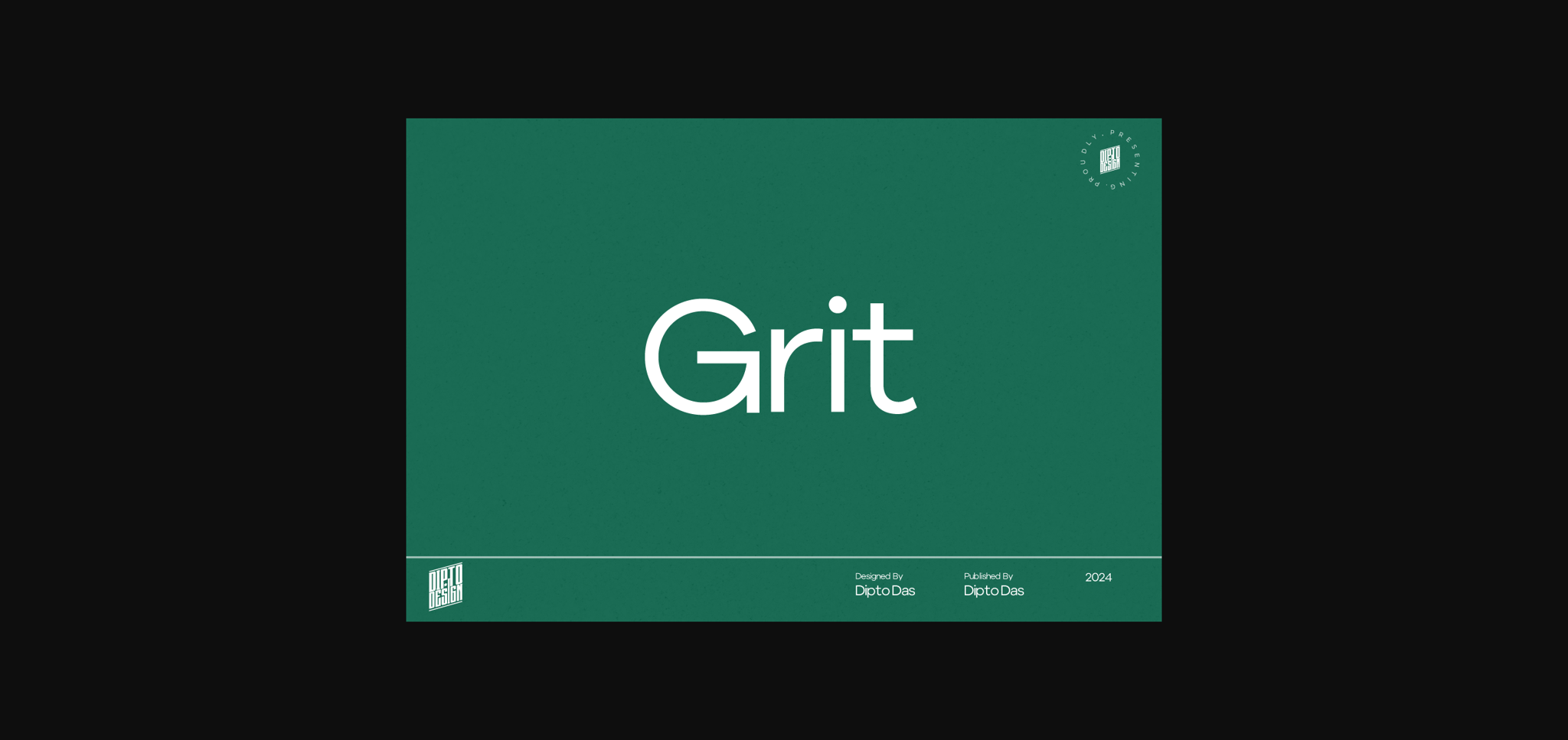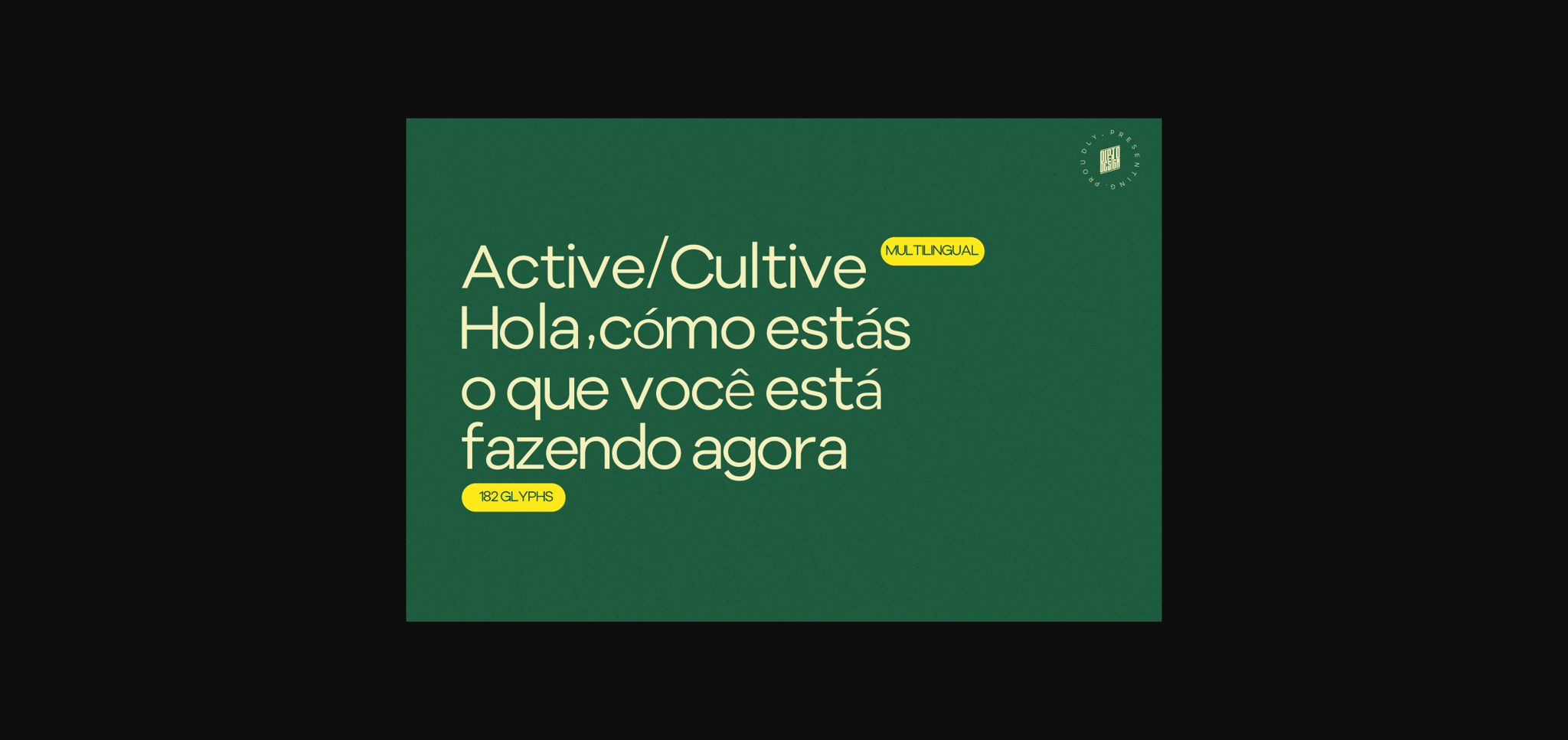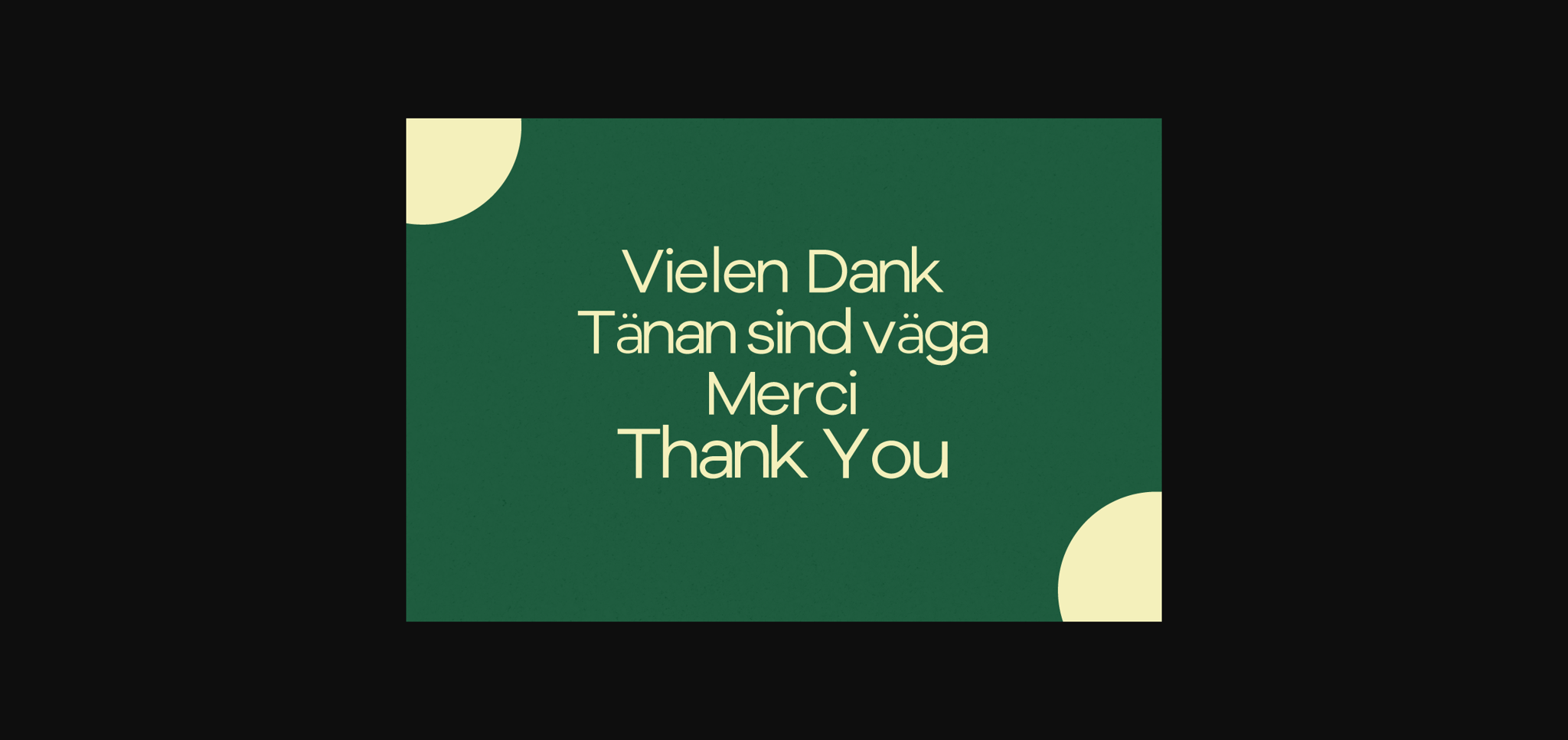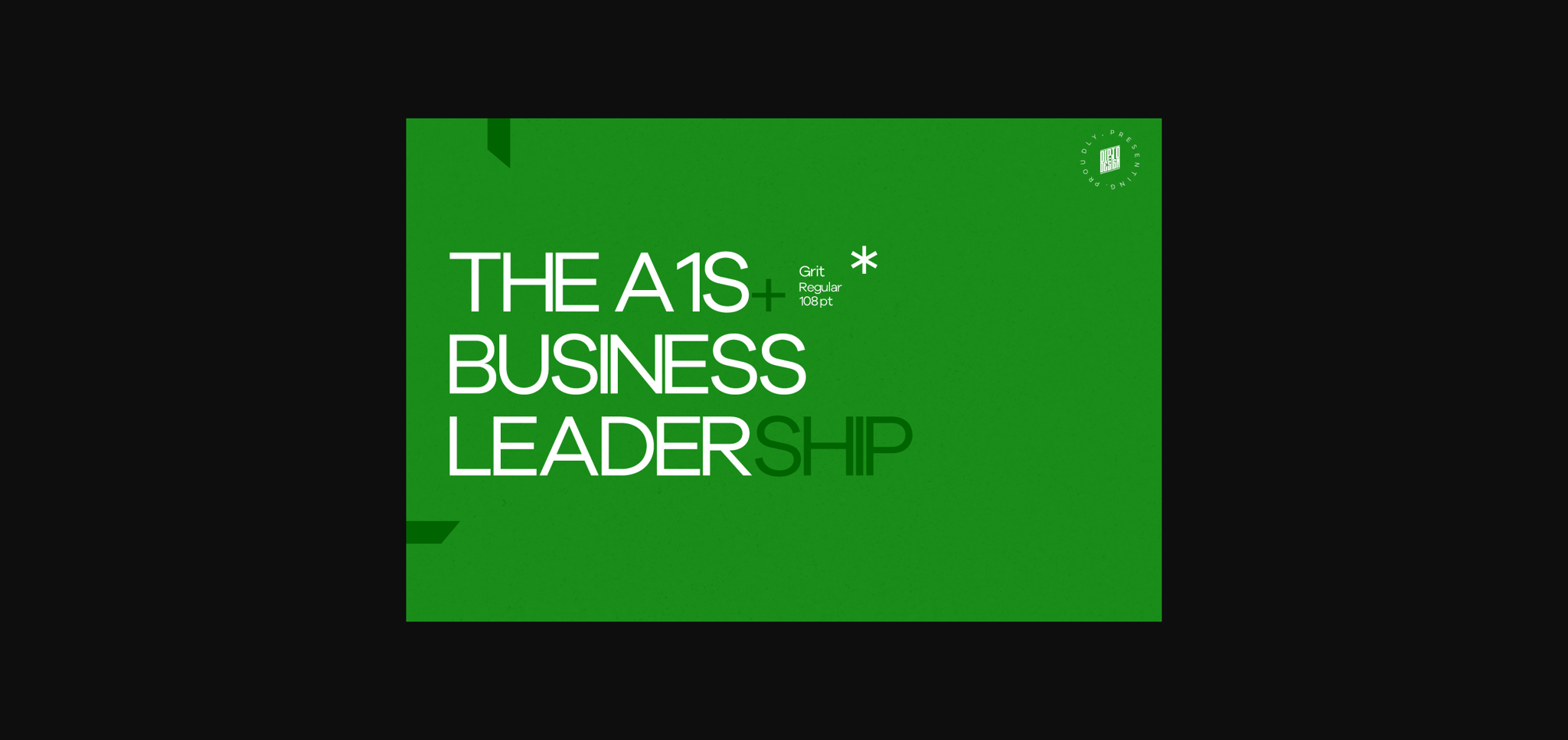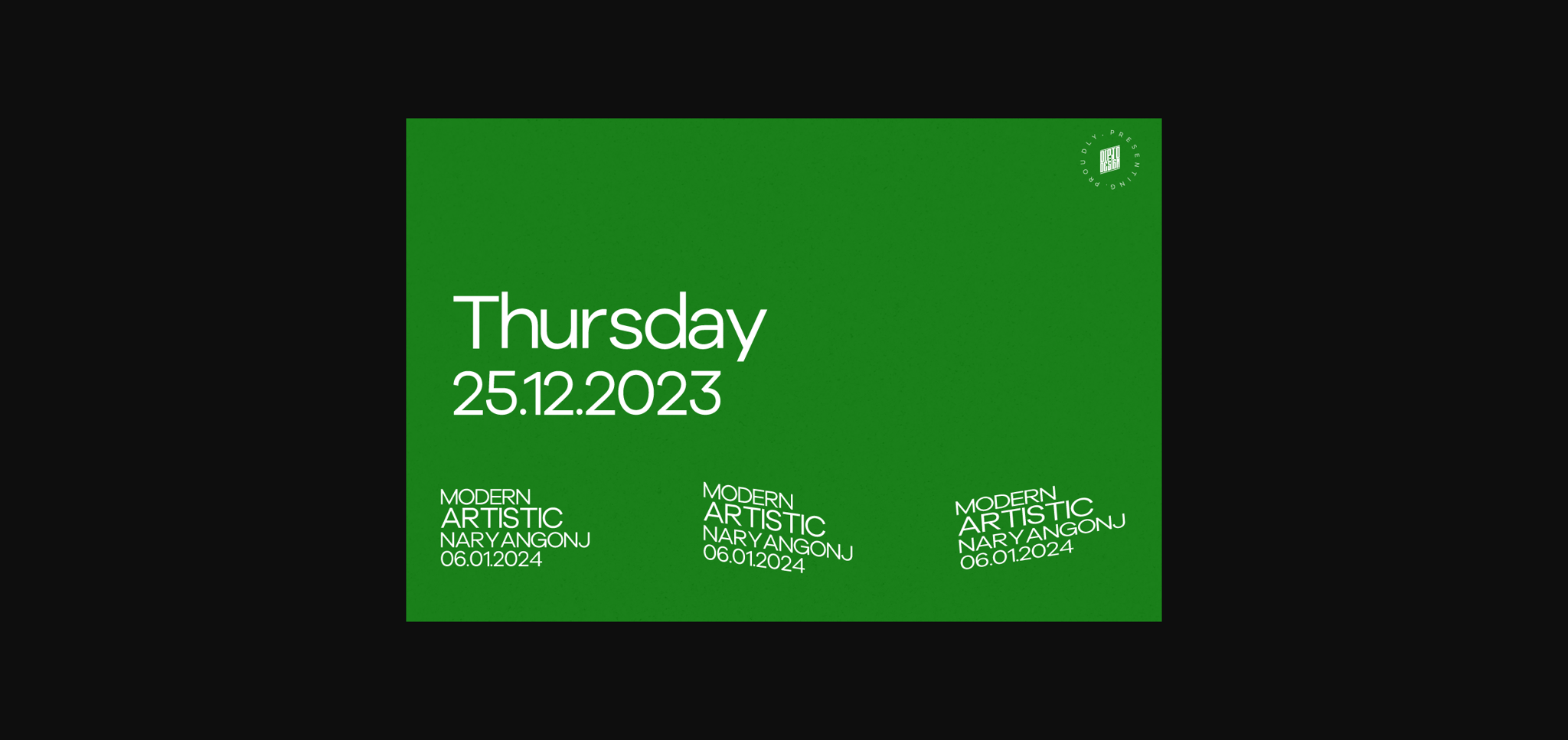
About Grit Font
Introducing “Grit” — a sans serif typeface that embodies strength and simplicity. With a modern and clean design, “Grit” is versatile, making it ideal for a wide range of design applications. Its bold characters exude confidence, making it perfect for impactful headlines, logos, and branding.
The straightforward yet stylish nature of “Grit” ensures legibility while maintaining a contemporary aesthetic. Elevate your design projects with this no-nonsense sans serif typeface.